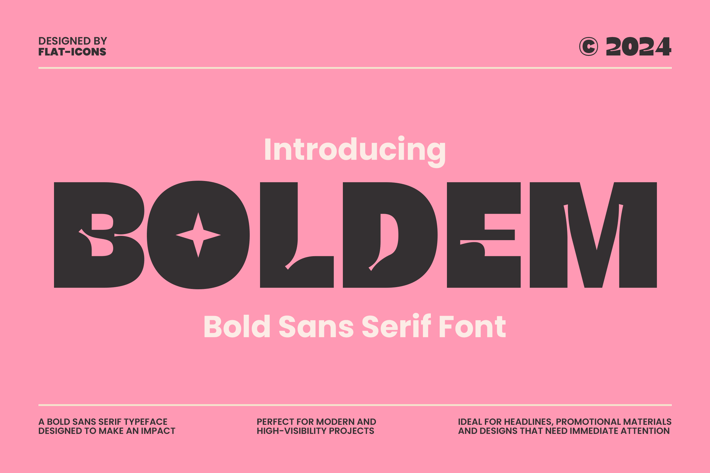
Boldem Bold Font
Introducing Boldem – A Bold Sans Serif Font.
Strong yet versatile, Boldem is the perfect choice for your creative projects. Use it for your website, social media branding, banners, bold headlines, and so much more! Make a statement that stands out with the confident energy of Boldem’s bold sans serif design.
Multilingual & Ligature Support
Full sets of Punctuation and Numerals